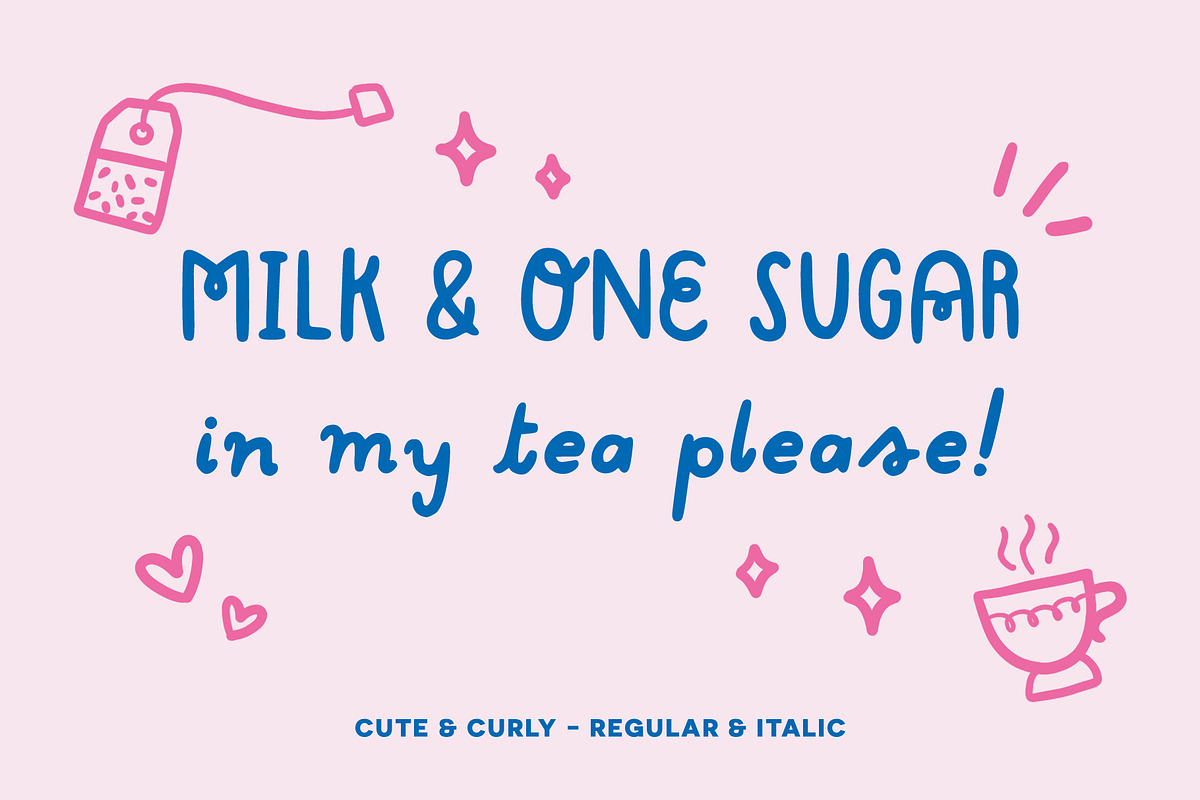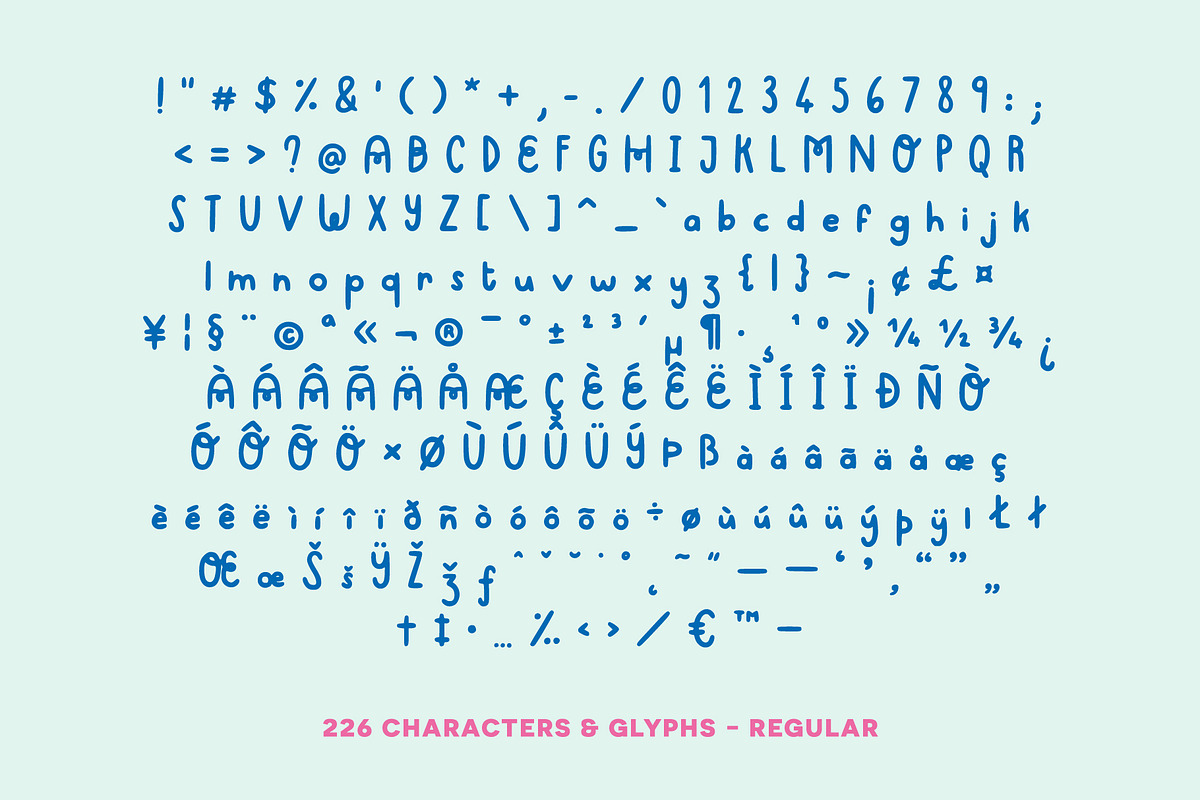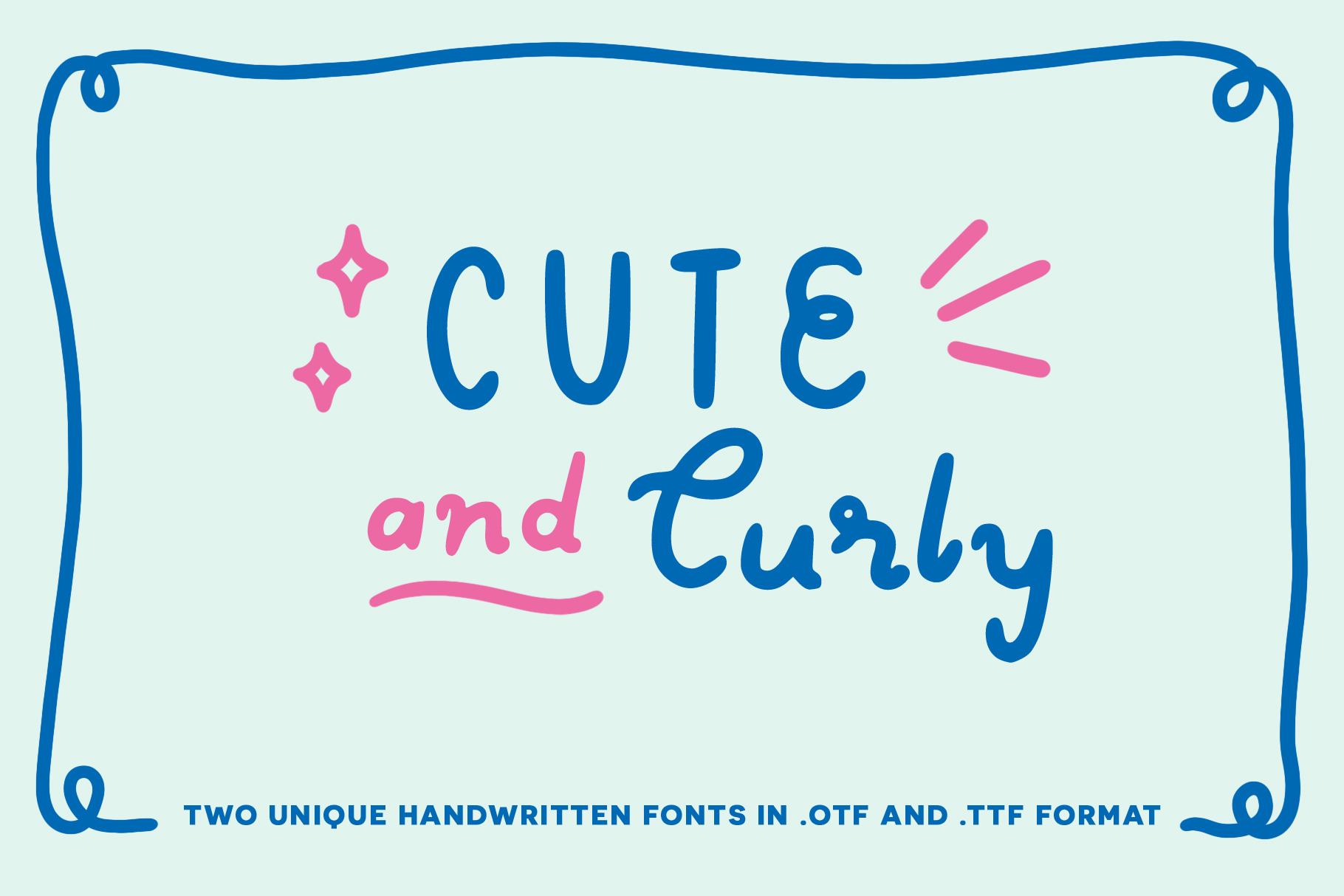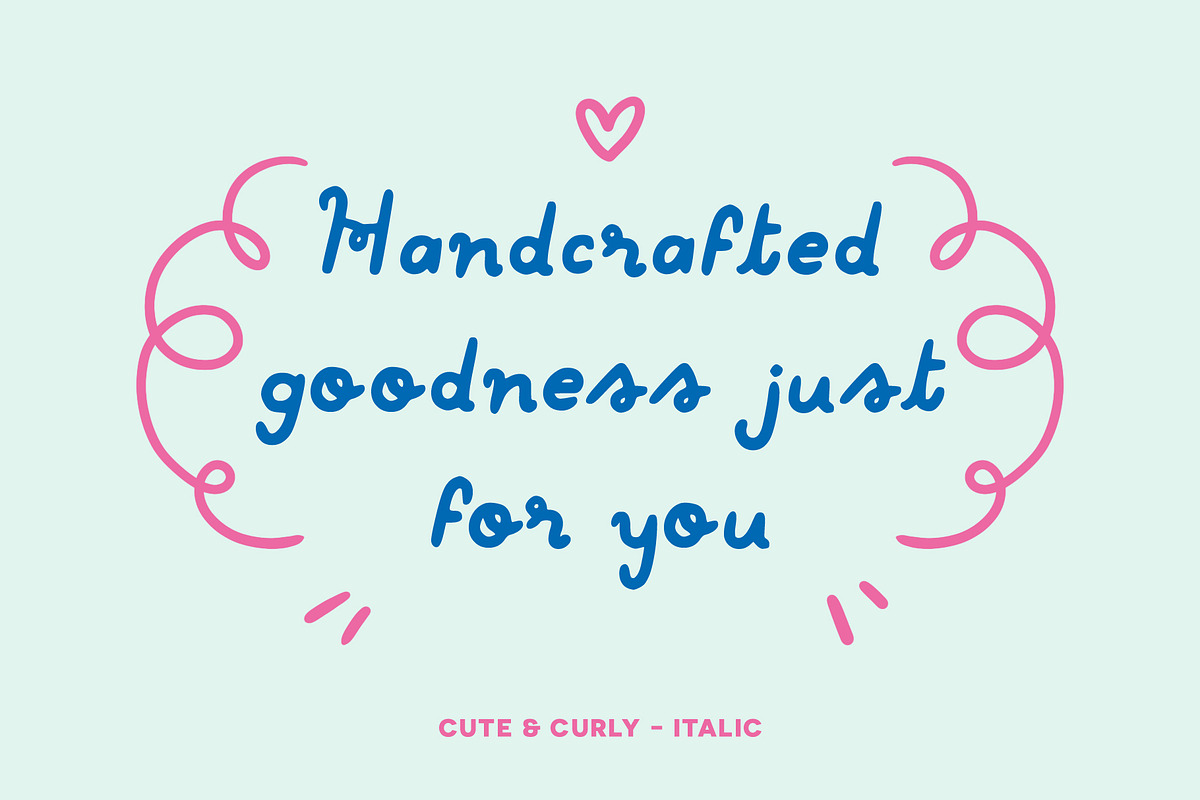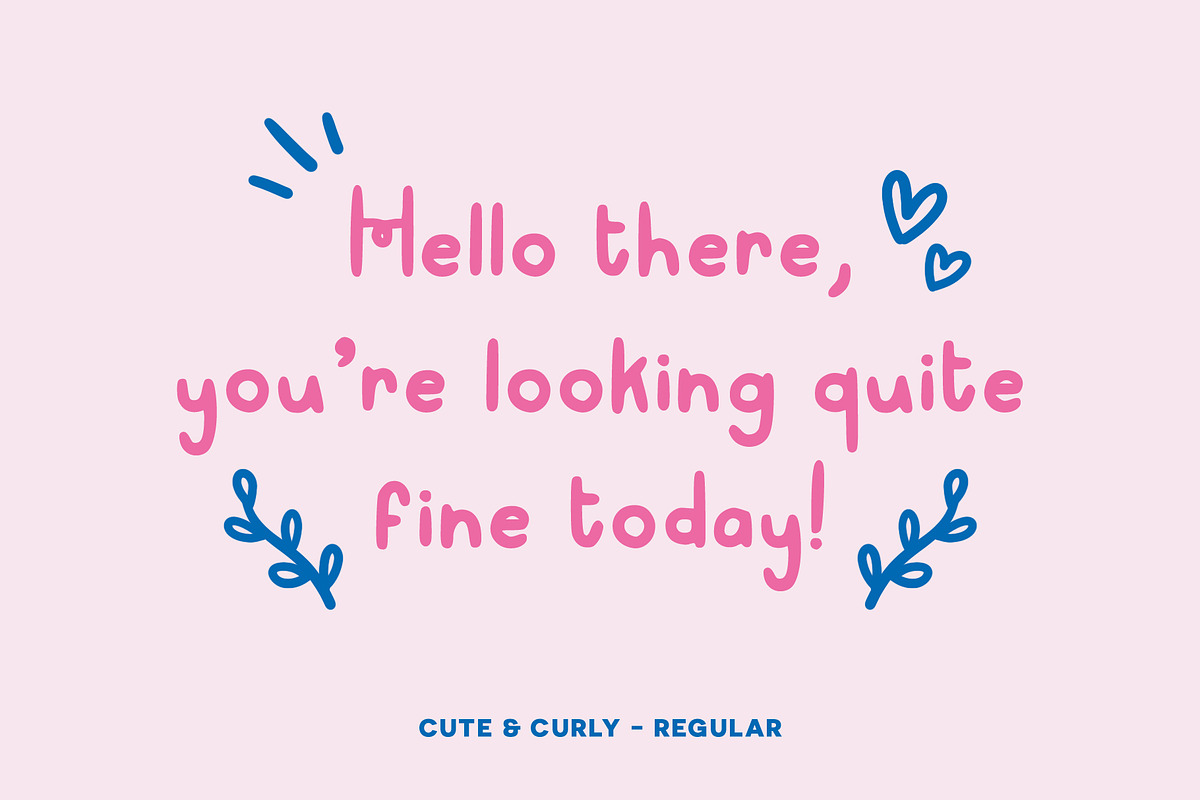
Cute & Curly handwritten fonts
The Cute & Curly fonts (regular and italic) have a sweet handwritten feel, and will add a soft and authentic touch to all your designs and products. They can be used for English, French, German, Italian and Spanish (or any other language that uses the same latin characters). Both fonts have a total of 226 characters and glyphs, including accents, punctuation, numbers, etc. Enjoy :)